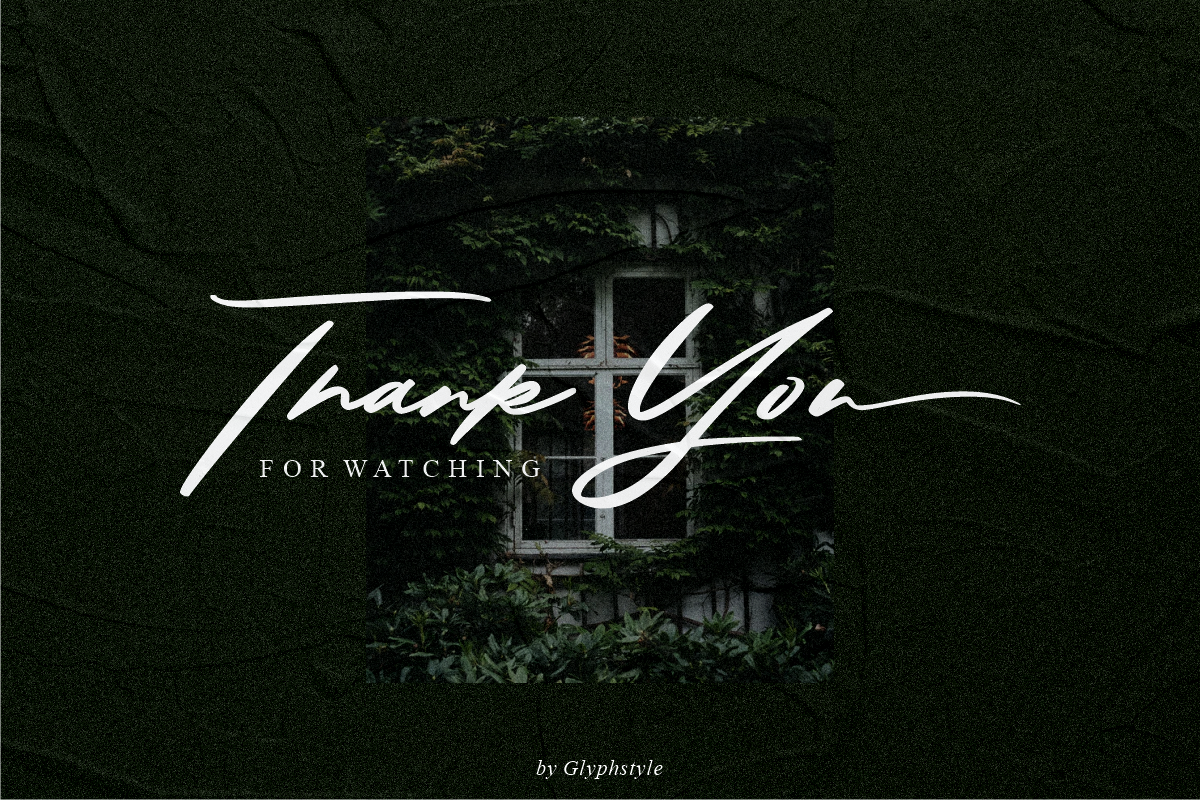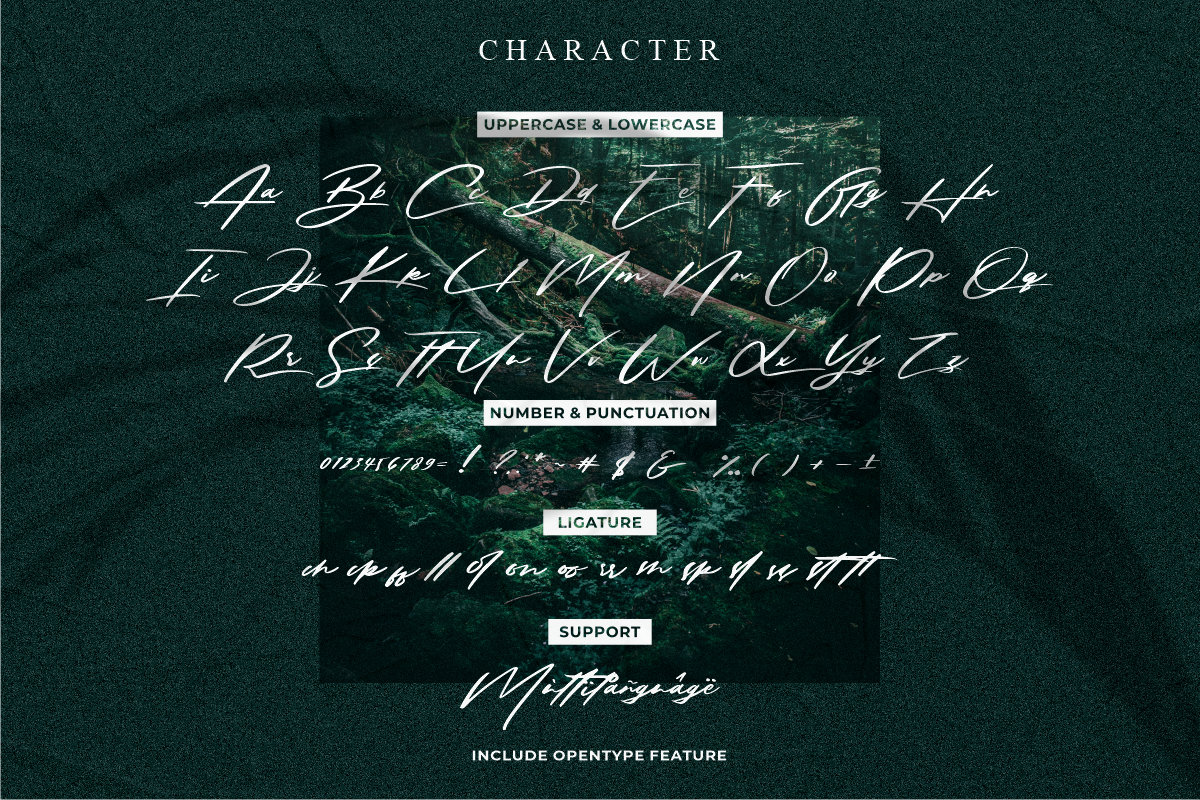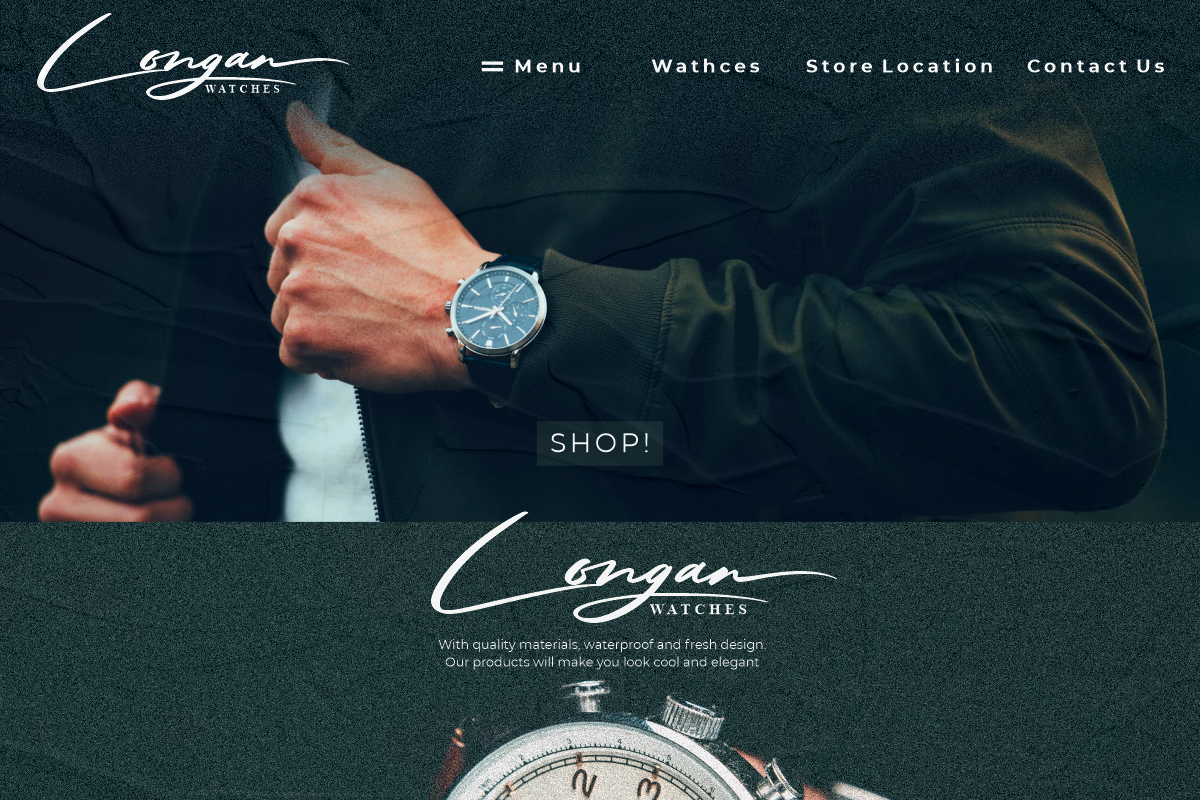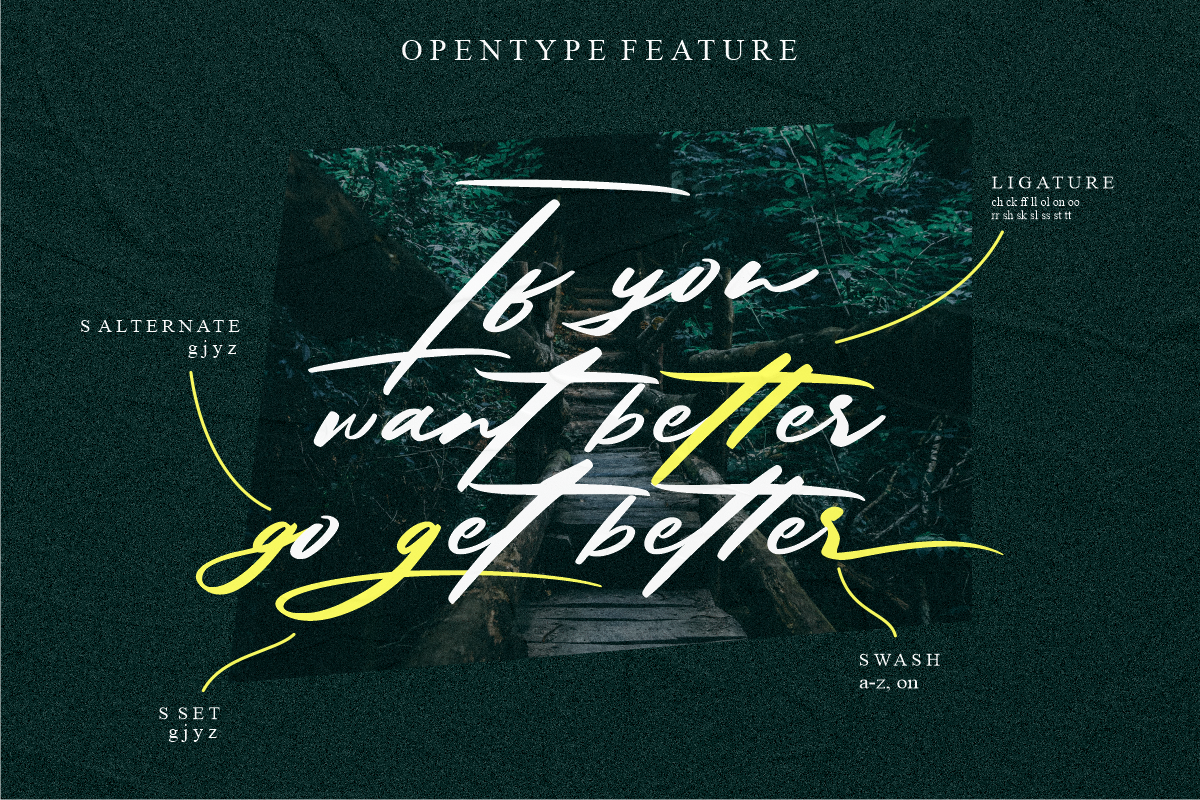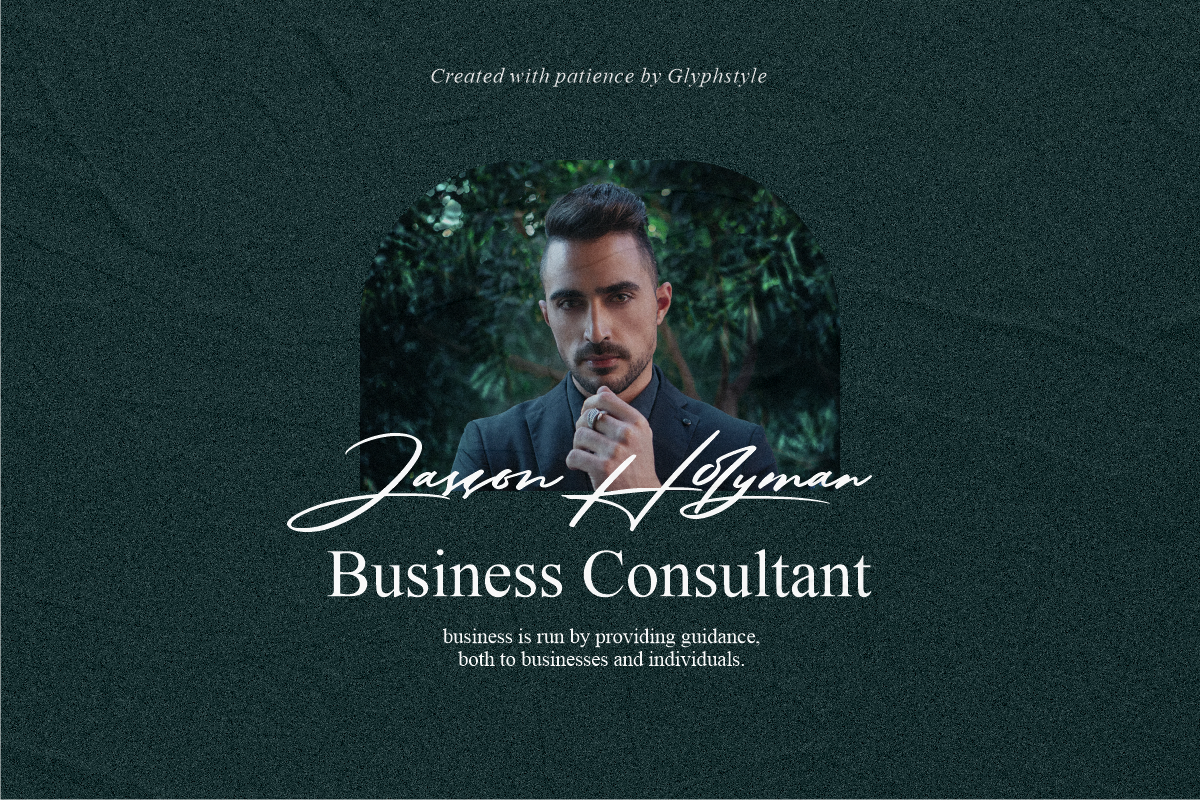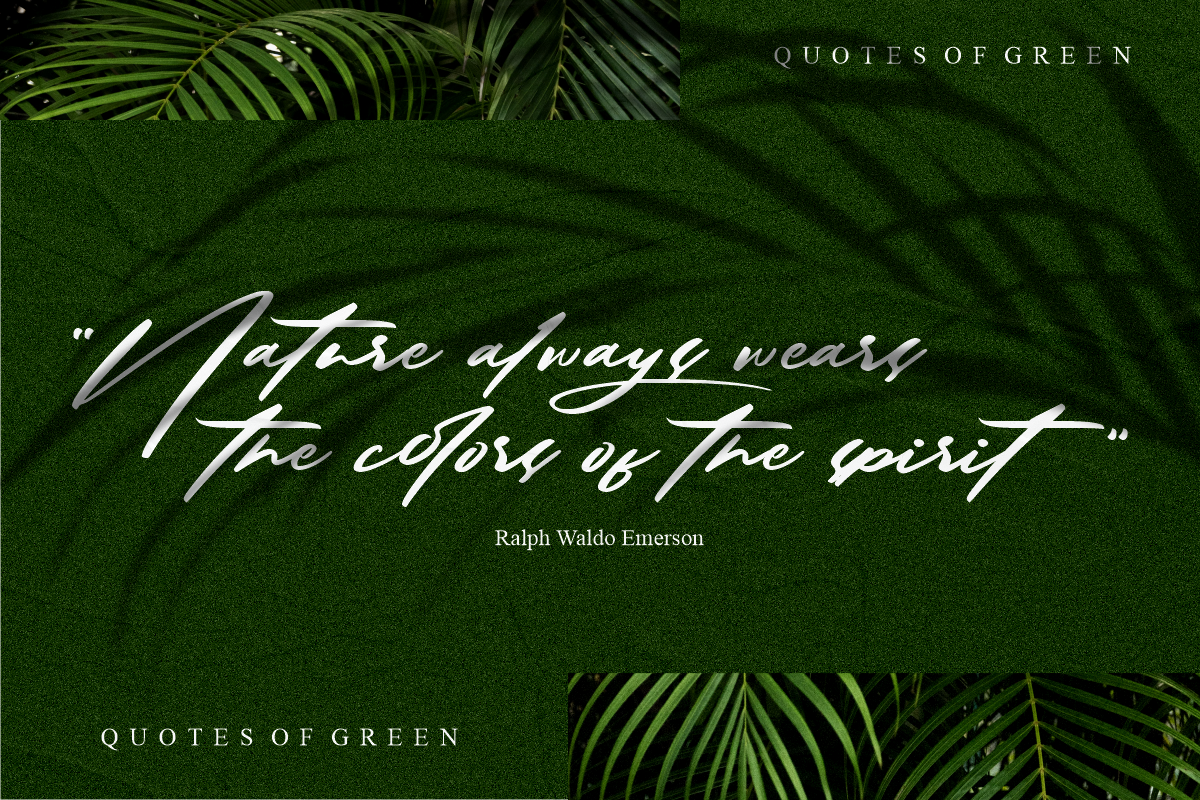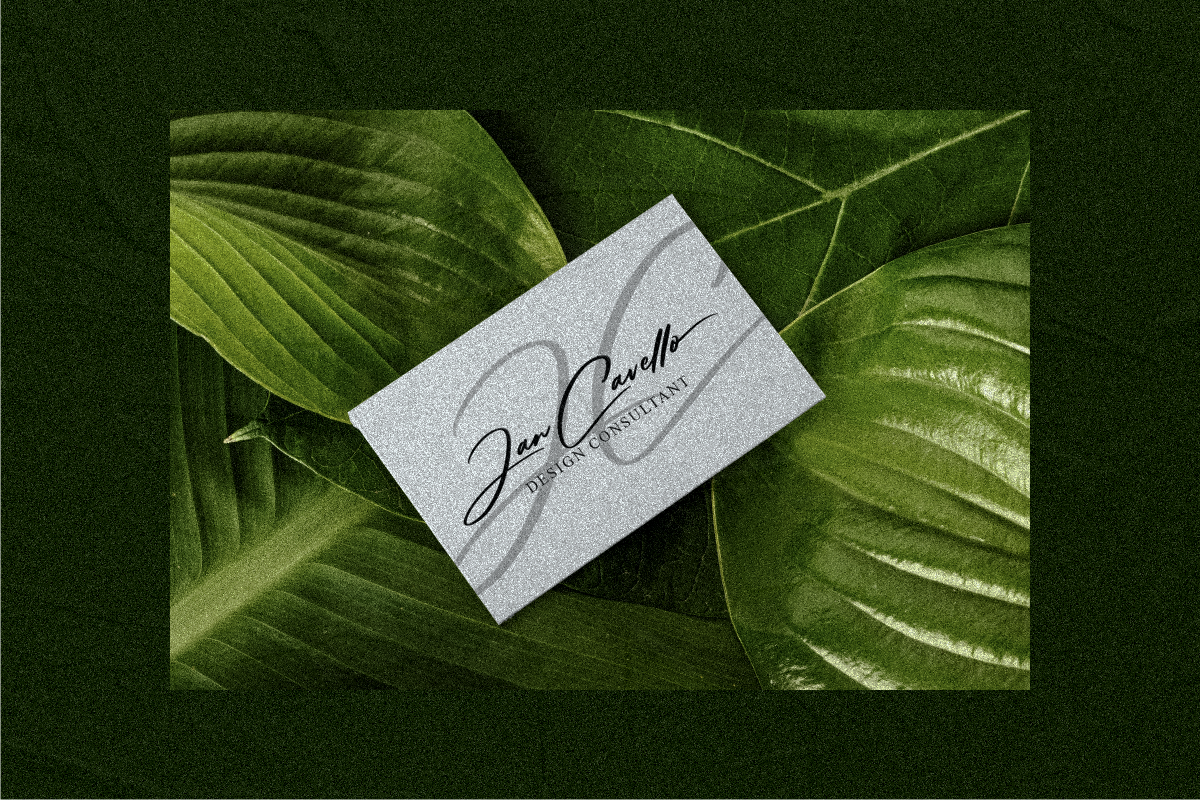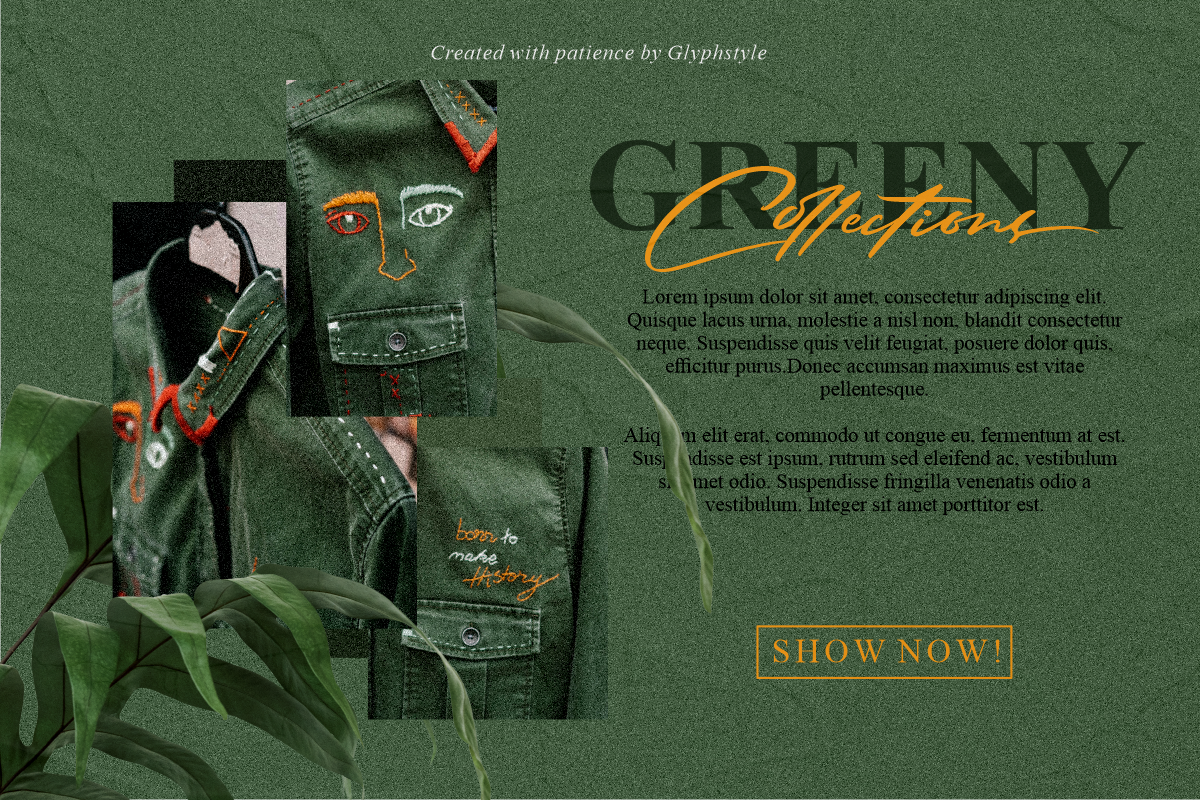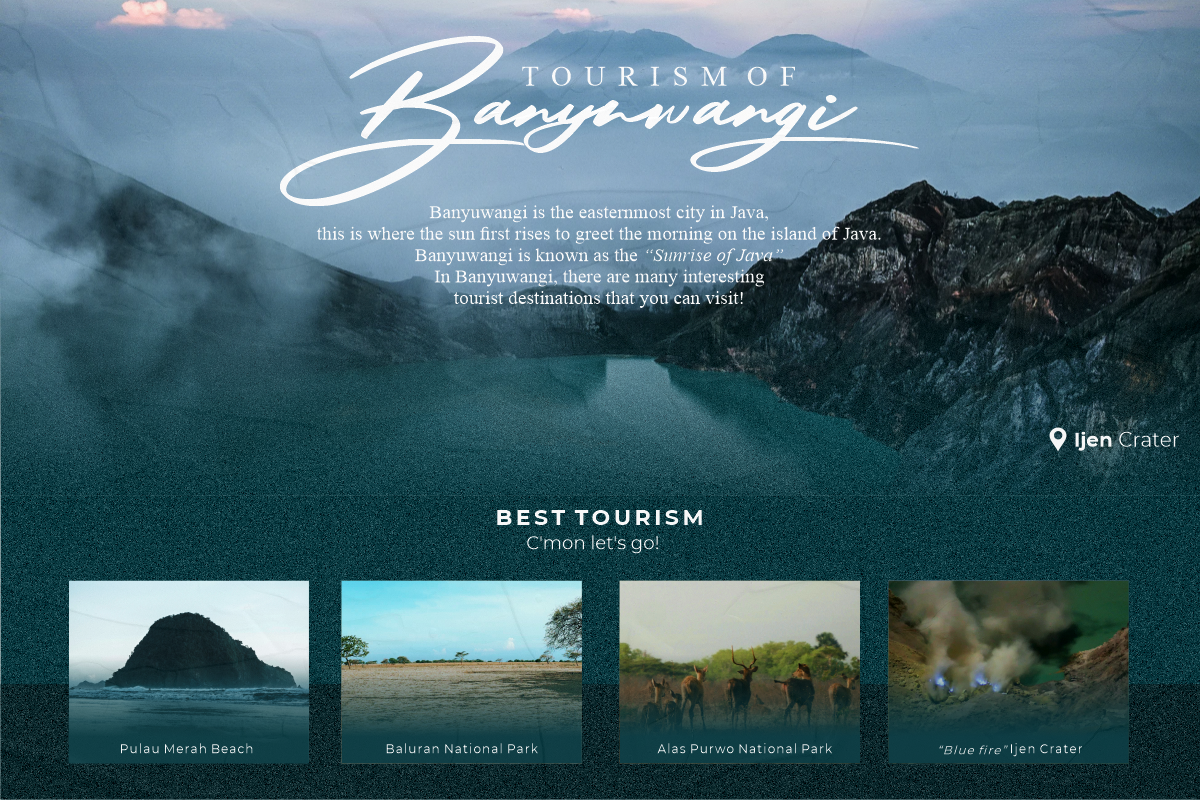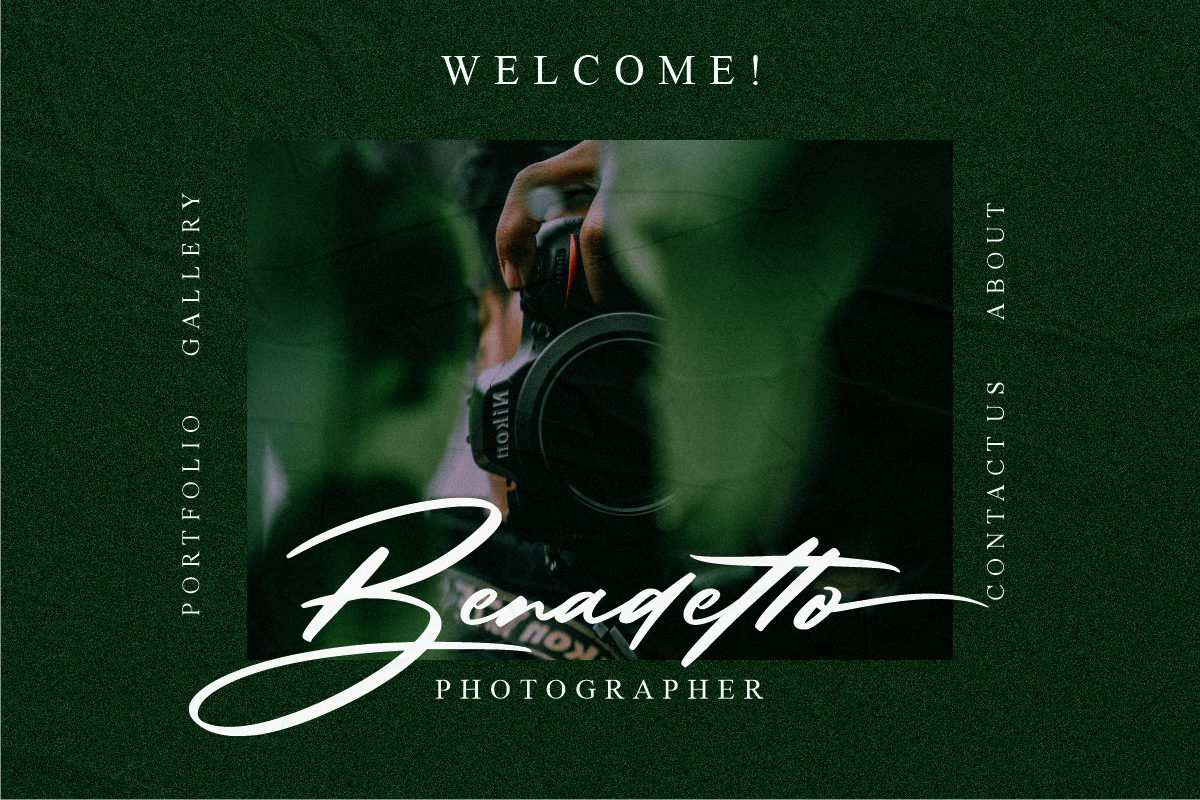
Solustion Bold Signature
Solustion is a signature style font that looks both bold and sheer. An elegant looking font and lots of unique characters like natural hand strokes.
Solustion is perfect for branding projects, logos, wedding designs, social media posts, advertisements, product packaging, product designs, labels, photography, watermarks, invitations, stationery, and any project that requires a sense of handwritten signature.
Uppercase, Lowercase, Numerals & Punctuations, Stylistic Alt, Stylistic Set, Swash Ligature, Multilanguage